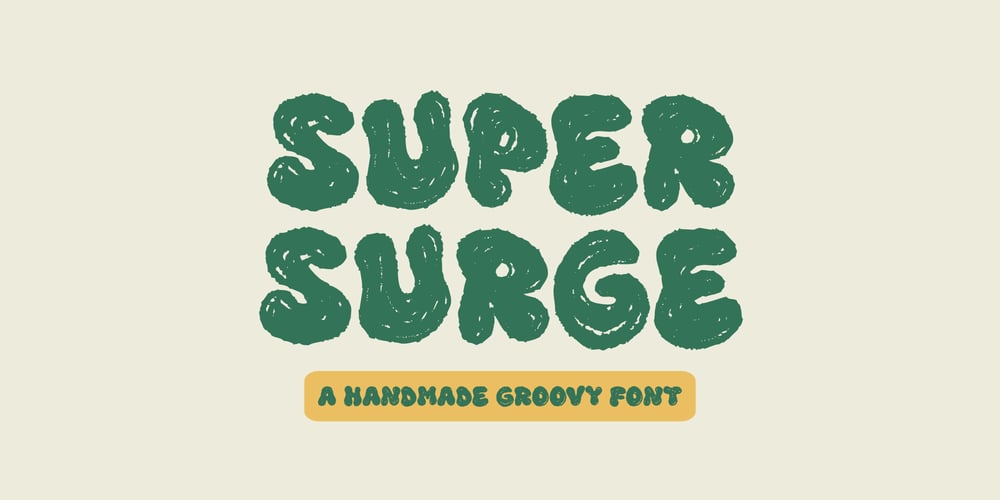
Super Surge
Super Surge font
Super Surge Font Family was designed by Ali Hamidi and published by Ali Hamidi. Super Surge contains 1 styles and family package options. Super Surge is a groovy, textured font with an organic feel, created handmade. It is a playful and dynamic font that is perfect for adding a touch of personality to any project.–Uppercase